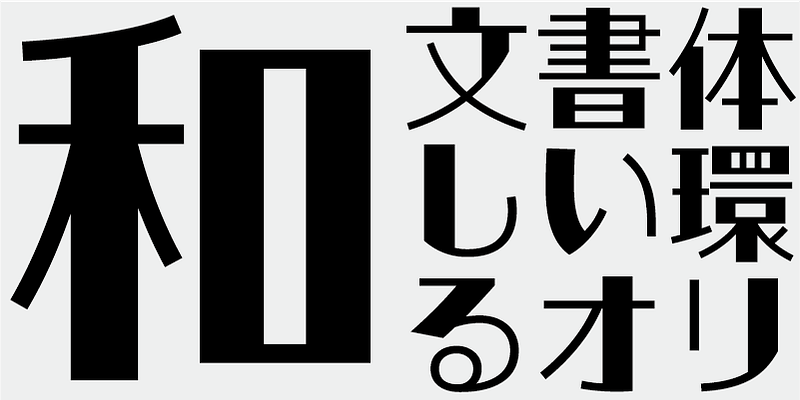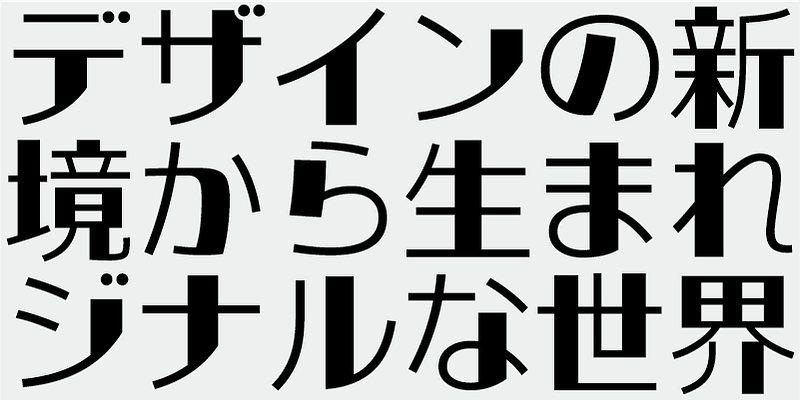
In this gothic typeface, the variation in stroke width seen in brush script or Mincho-style letter shapes is mimicked by combinations of lines and filled areas. To give the typeface a strong presence, the use of filled areas is minimized, and limited to vertical strokes. These techniques create a fancy and unique typeface.